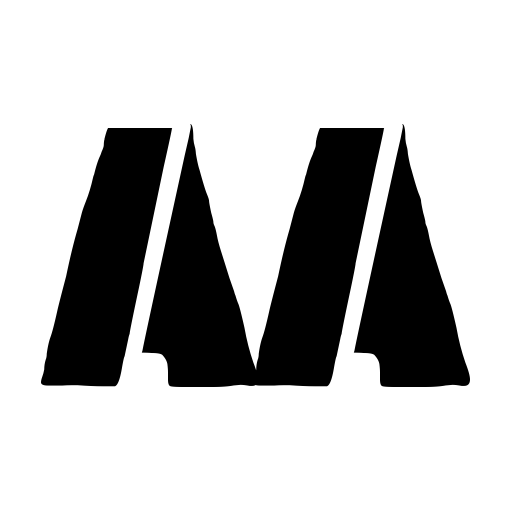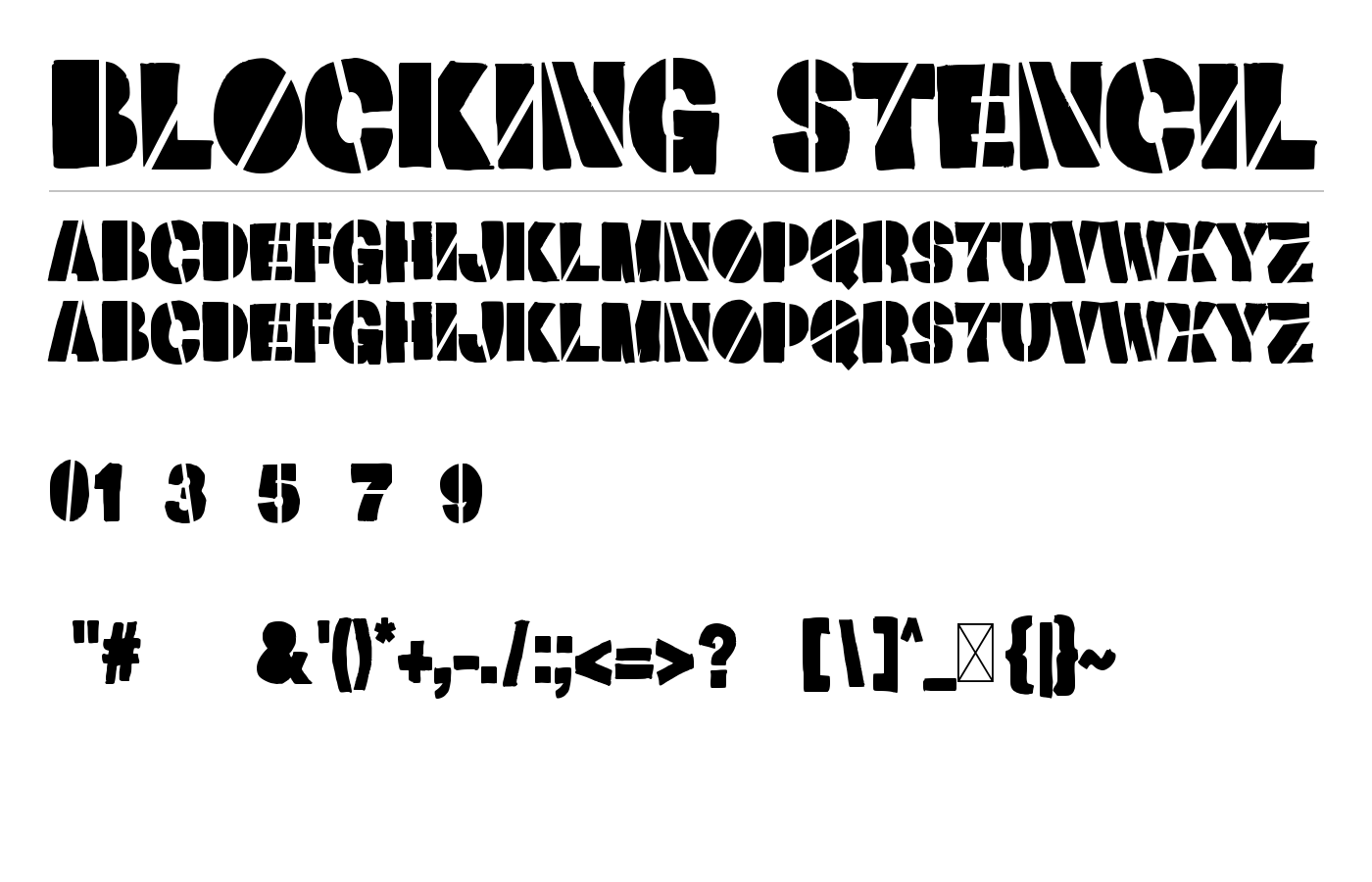
Blocking Stencil is a bold, condensed sans serif font designed with a rugged stencil style that features strong, blocky letterforms segmented by sharp, stencil cuts. Its high contrast between solid black shapes and white gaps creates a striking, industrial feel, making it perfect for eye-catching logos, posters, and branding that require a tough, utilitarian look. This font conveys strength and urgency while maintaining readability, ideal for military-inspired designs, signage, and creative projects needing a bold graphic impact.
Blocking Stencil Font
About Blocking Stencil Font